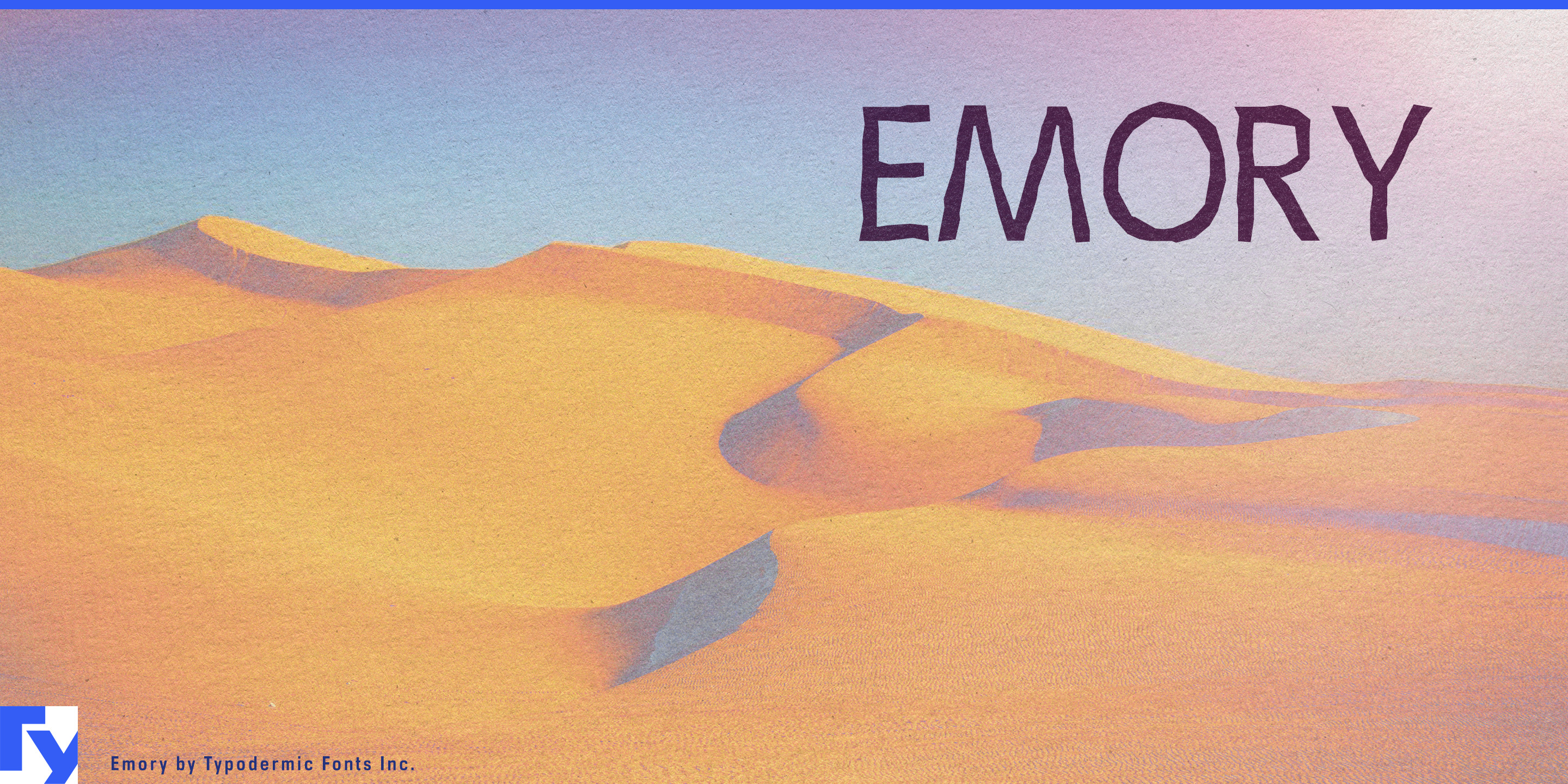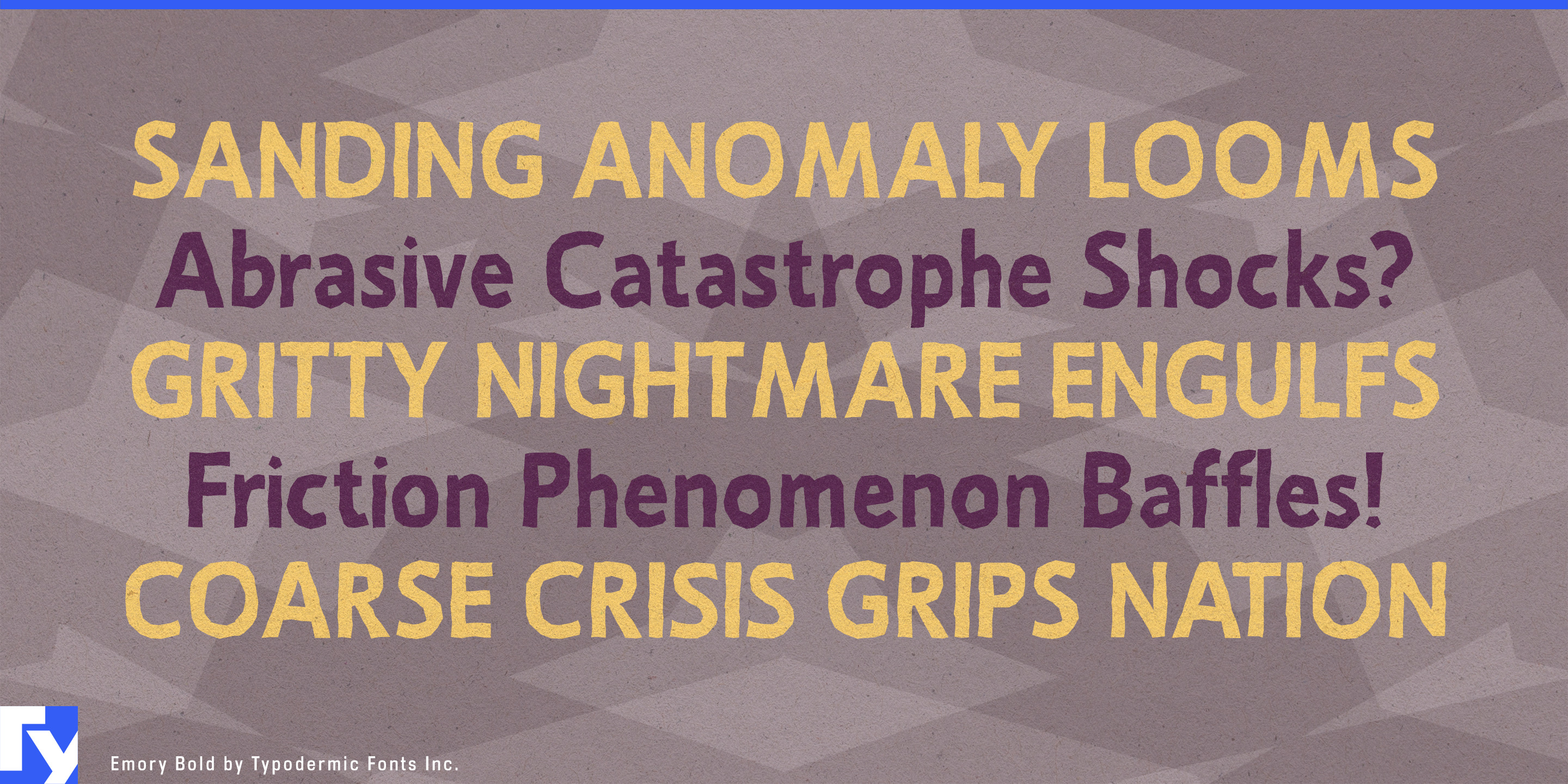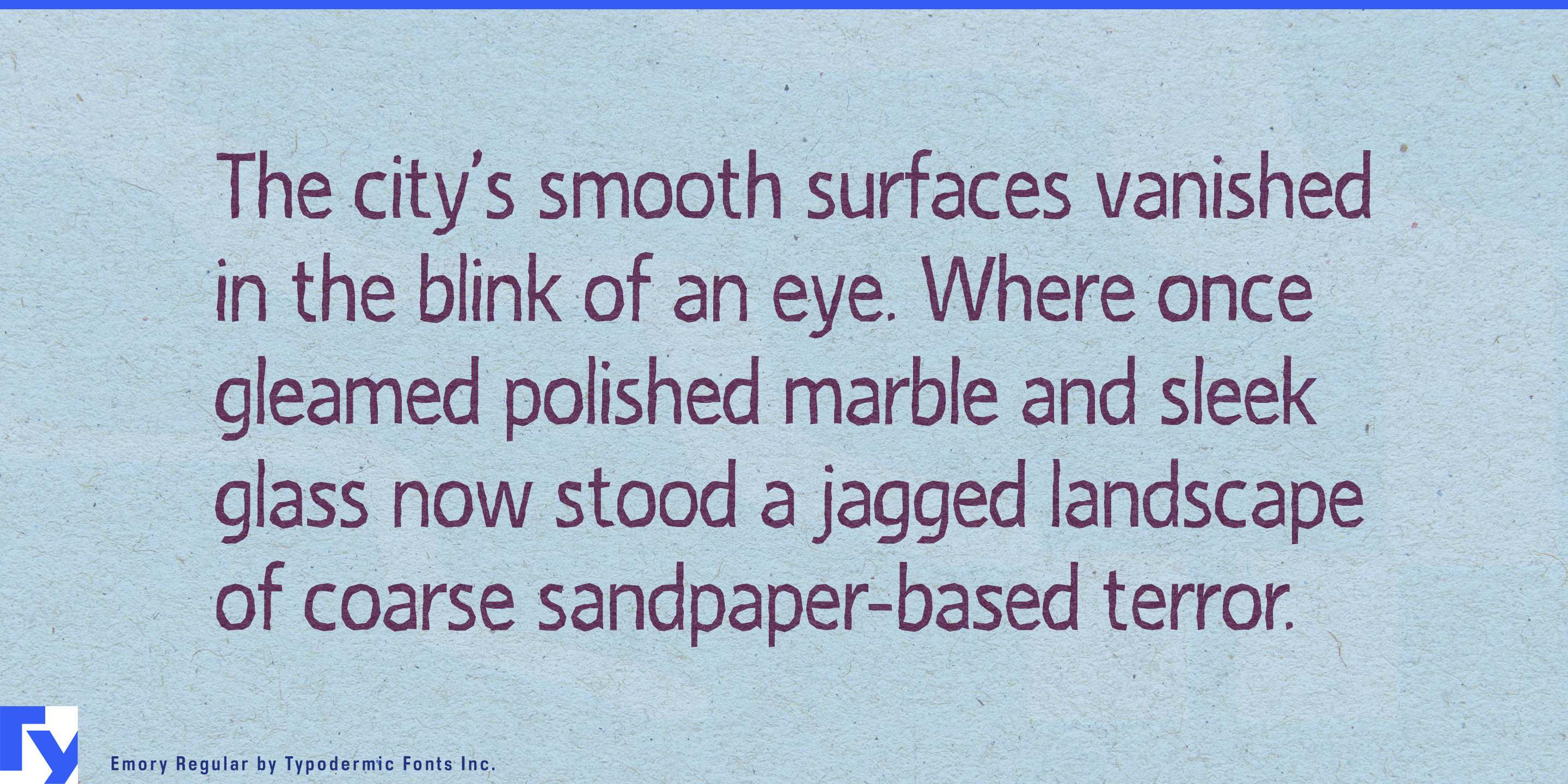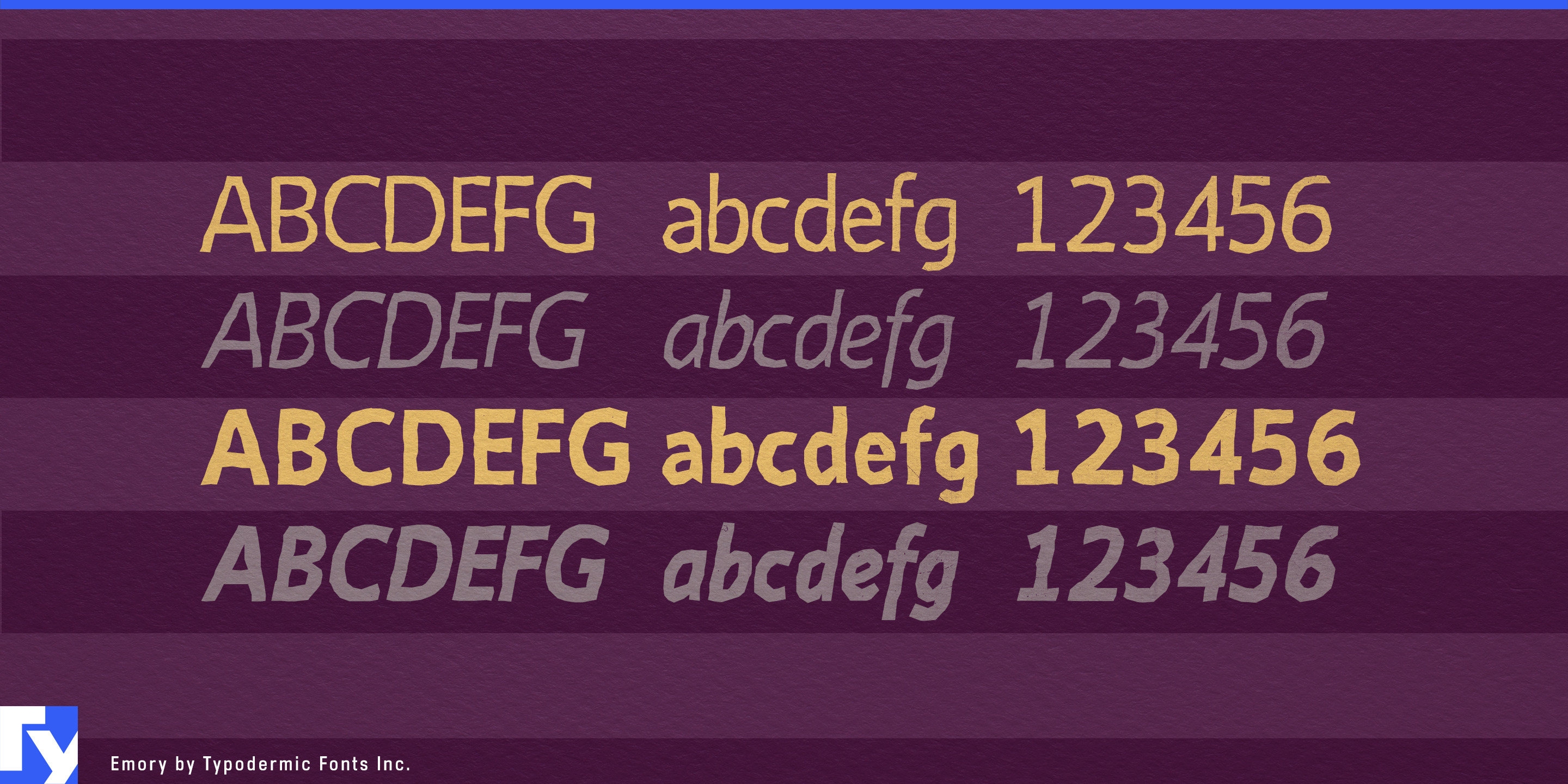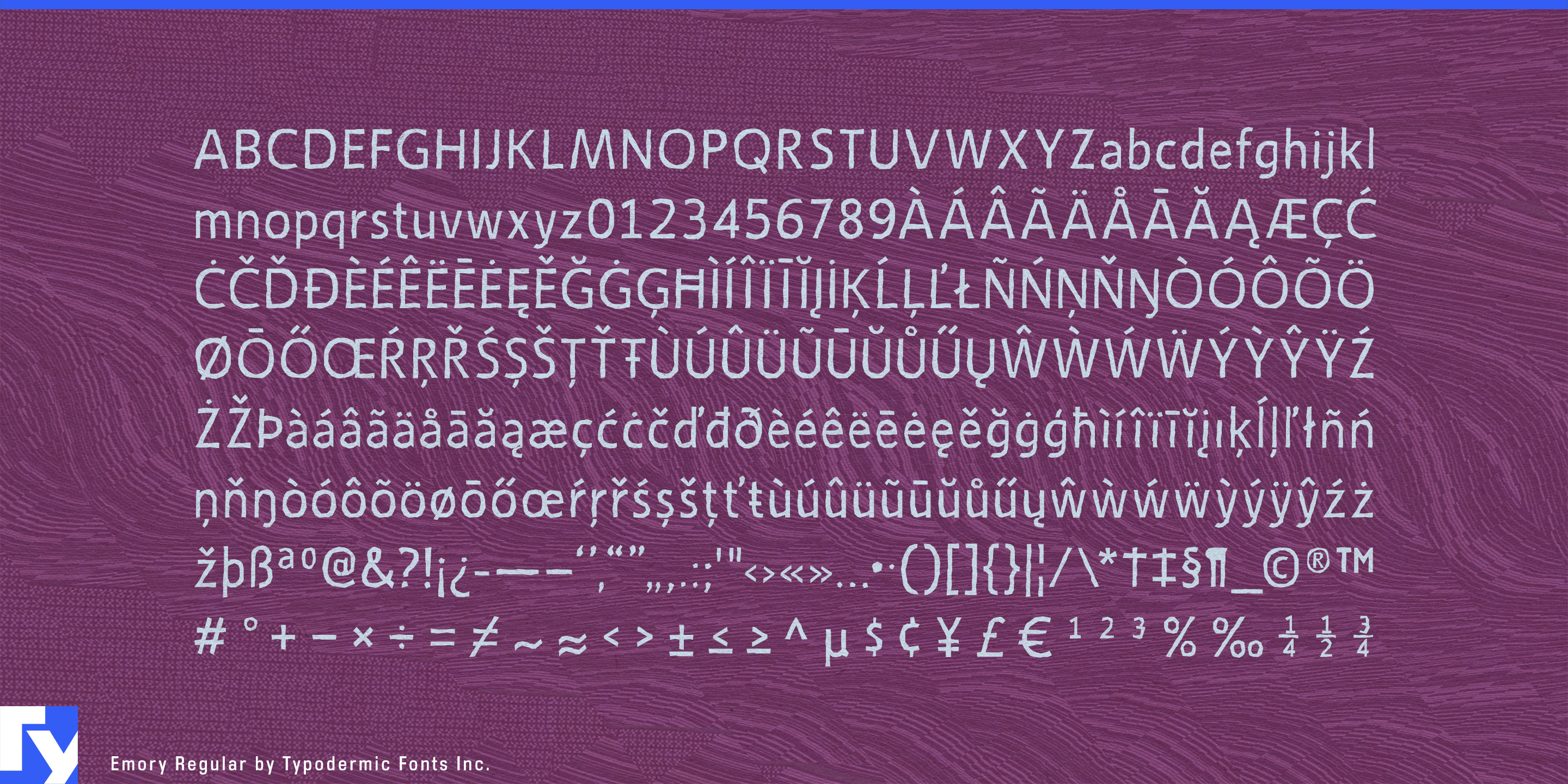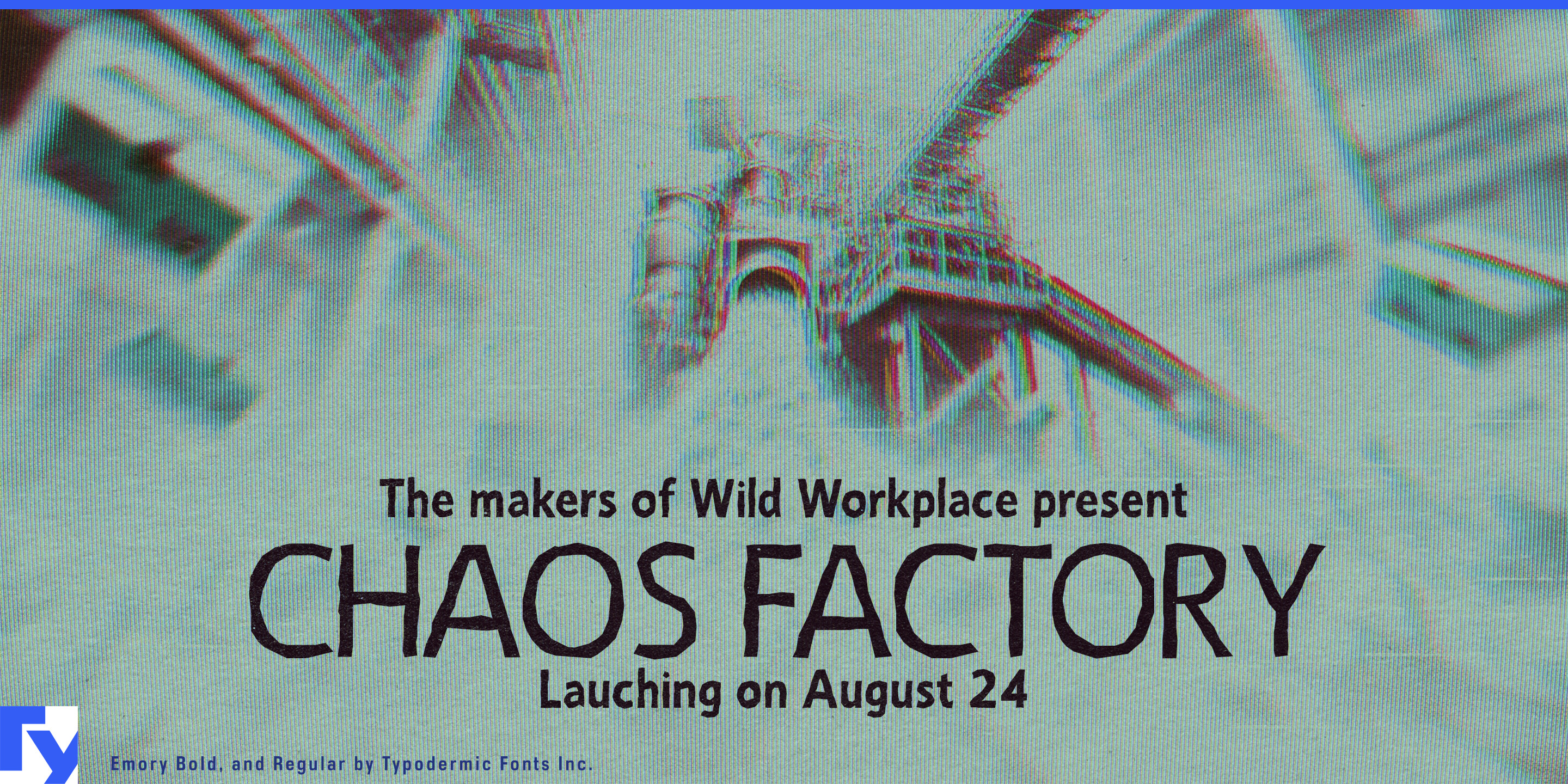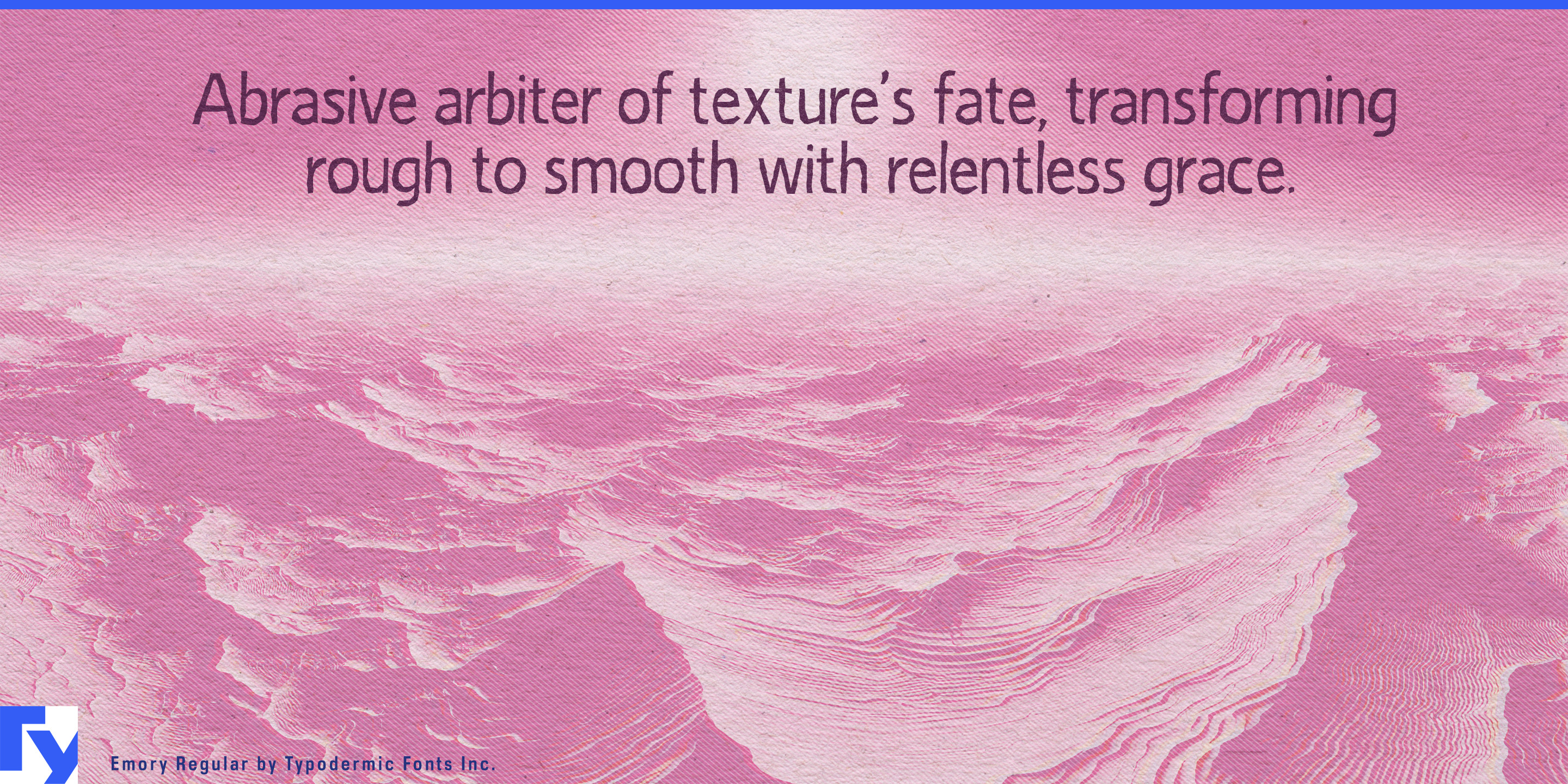
Emory
Crunchy food packaging has to promise texture before anyone opens the bag. A cookie name should feel crumbly; a chip brand ought to suggest snap and seasoning from across the aisle. Emory gives typography that physical quality. Its narrow sans-serif shapes have warped, rubbed contours that make each word look baked, scraped, or imperfectly printed.
The roughness is built into the silhouettes. Straight sections bend slightly, curves tighten unexpectedly, and repeated shapes never feel clinically manufactured. Underneath that distortion is a clear geometric structure that keeps Emory recognizable and surprisingly readable. Its condensed proportions also leave room for long product names, flavour combinations, and emphatic package callouts.
Emory is particularly well suited to oat cookies, ginger snaps, shortbread, sandwich biscuits, crackers, pretzels, tortilla chips, popcorn, granola clusters, and crunchy cereals. On bags, cartons, and multipacks, its irregular contours can suggest crumbs, salt, toasted grains, cracked surfaces, or an uneven coating without drawing any of them literally. Product names, flavour bands, ingredient stories, and short pieces of package copy can all share the same tactile voice.
The effect becomes drier and more adult around products shaped by fermentation and natural processes. Natural wine, cider, kombucha, specialty vinegar, sourdough, and cultured foods can use Emory for bottle labels, batch names, tasting cards, taproom boards, and release posters. It gives them an independently made appearance without relying on rustic script or nostalgic engraving.
Publishing and screen graphics reveal a stranger side. The distorted outlines introduce low-level unease without conventional horror lettering, making Emory useful for weird fiction, folk horror, ecological suspense, absurdist comedy, mock instructional films, and fictional community television. Geology, archaeology, erosion, and material-science exhibits can connect the same unstable contours with stone, sediment, weathering, and imperfect surfaces.
When common letters repeat, built-in substitutions introduce alternate shapes and reduce mechanical repetition. Emory provides repeatable imperfection that can extend across an entire package line, exhibition, publication series, or screen campaign.